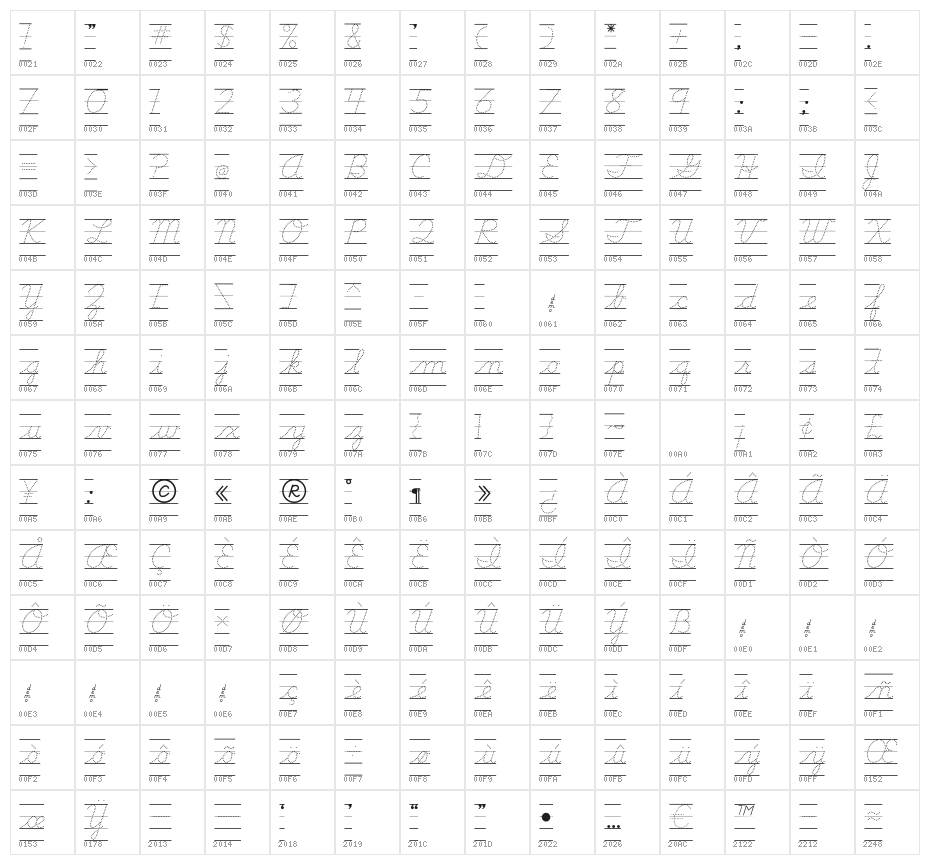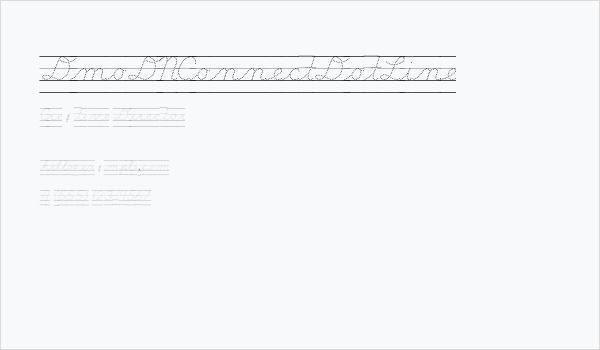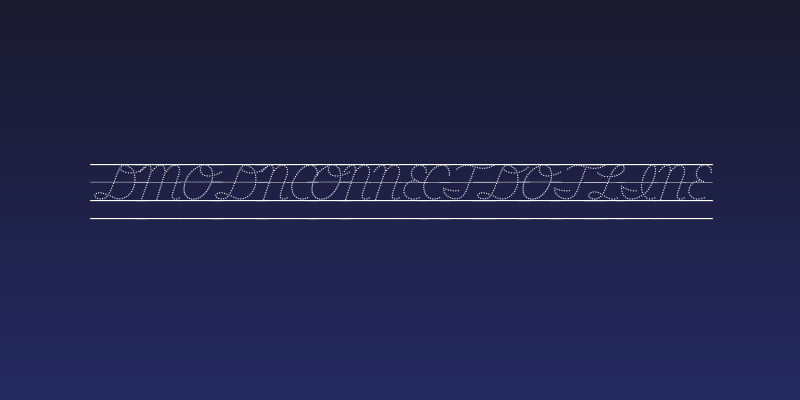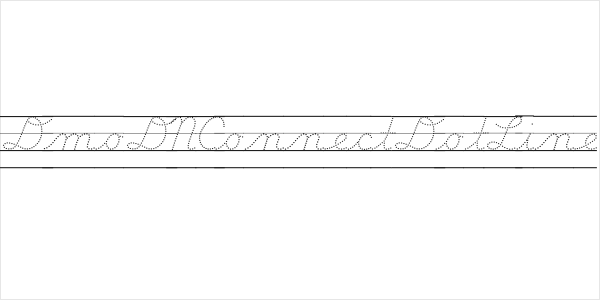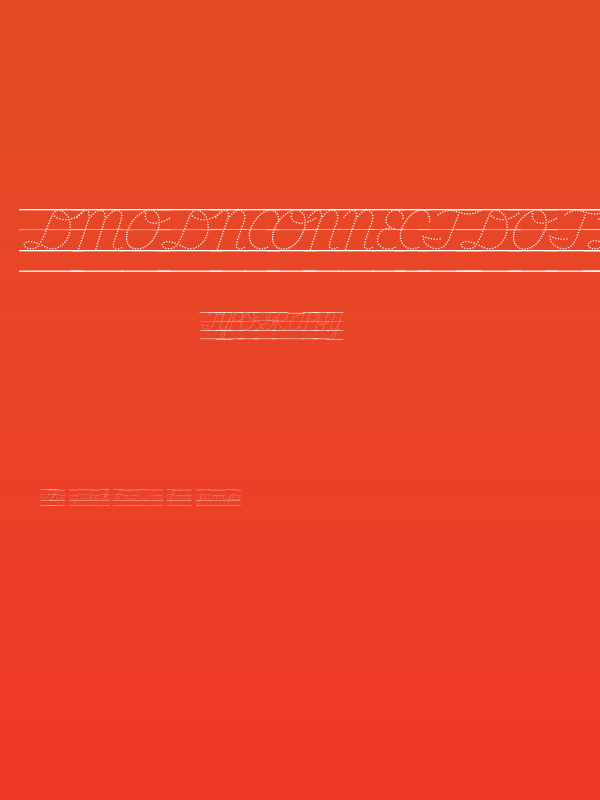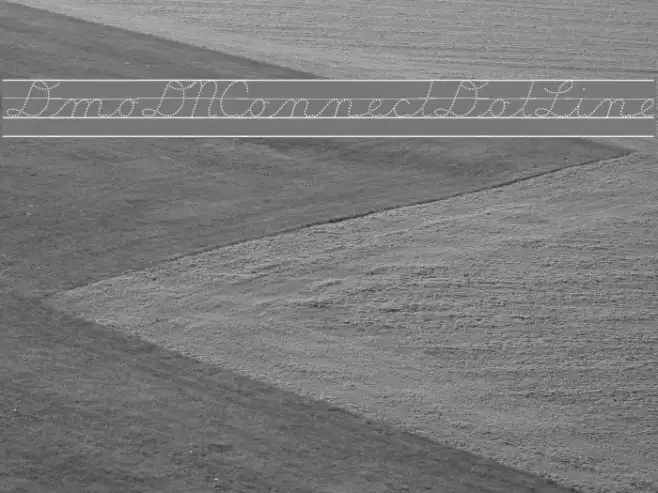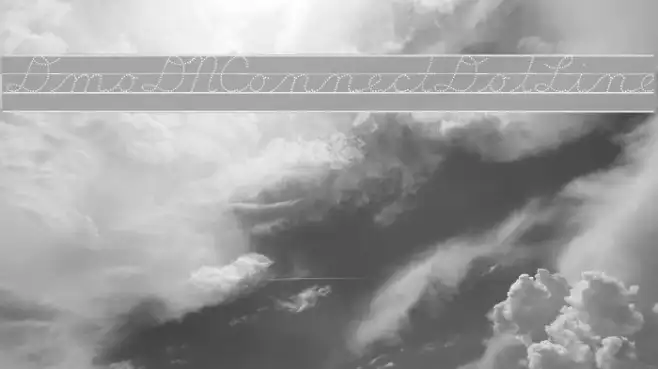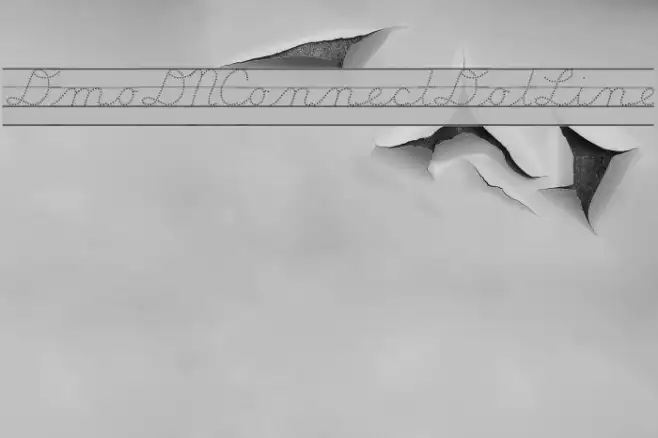
DmoDNConnectDotLine Font
DmoDNConnectDotLine Description
This font features a unique dotted line style that mimics the appearance of a connect-the-dots puzzle. Each character is composed of evenly spaced dots, creating a playful and educational aesthetic. The uppercase and lowercase letters maintain a consistent flow, with cursive-like connections that suggest movement and continuity. Numbers and special characters follow the same dotted pattern, ensuring uniformity across all elements. The font's design is reminiscent of handwriting practice sheets, making it ideal for educational purposes or creative projects that require a whimsical touch.
| Overall Style | Playful, Educational |
| Use Case | Educational materials, Creative projects |
| Proposed Projects | Perfect for educational materials, children's books, playful branding, and creative design projects. |